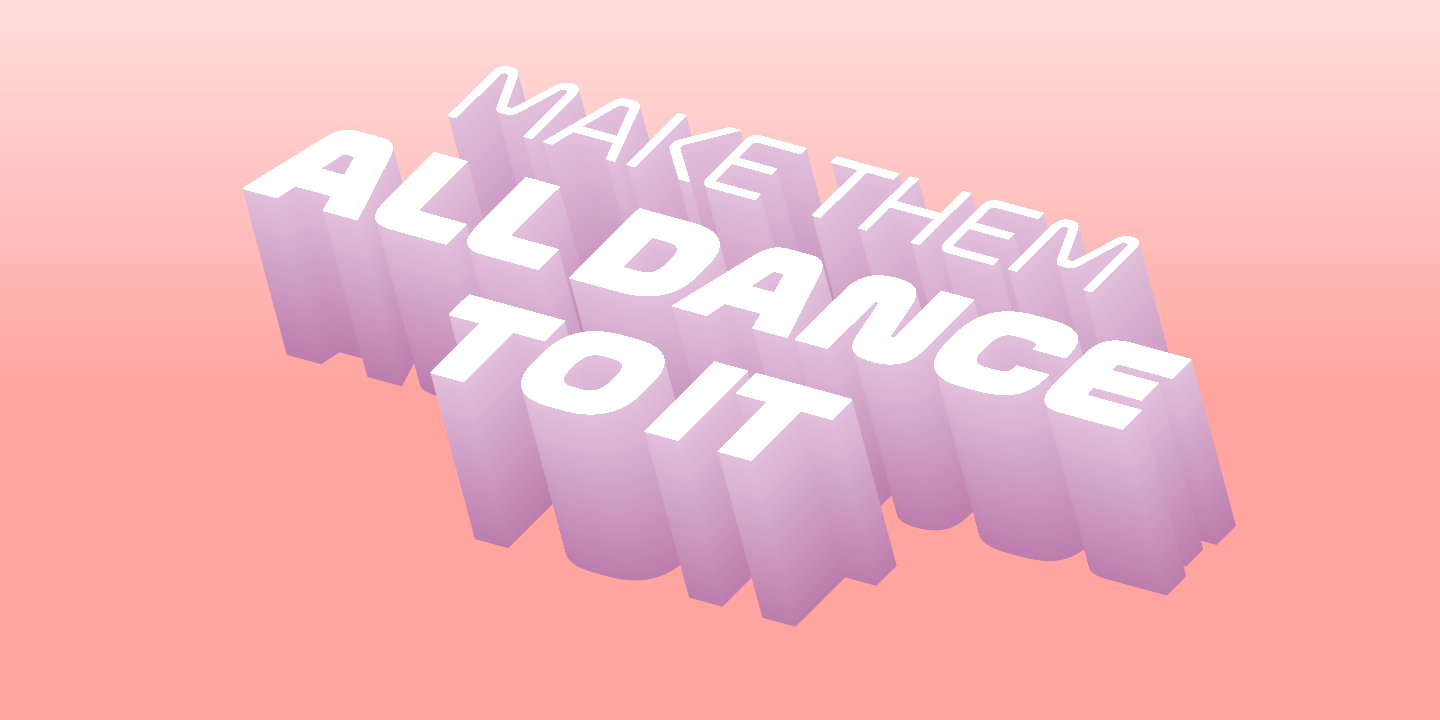
Kinn Font is perfect for various design applications including Scandinavian design studios, Nordic lifestyle branding, minimalist home decor companies, sustainable furniture manufacturers, modern architecture firms, contemporary art galleries, clean tech startups, and Nordic-inspired wellness centers that require authentic Scandinavian sophistication and minimalist elegance.
What makes Kinn Font truly exciting is its masterful embodiment of Nordic design philosophy and Scandinavian minimalism that captures the essence of clean living, functional beauty, and the timeless aesthetic principles that define Nordic culture's approach to creating harmony between simplicity and sophistication. This refined typeface features clean, purposeful letterforms with subtle geometric precision that evoke images of pristine fjords, modern Scandinavian interiors, and the thoughtful design approach that prioritizes functionality without sacrificing beauty. The font's Nordic character reflects the clarity and purposefulness of Scandinavian design thinking, making it perfect for brands that want to communicate minimalist sophistication, sustainable values, and the refined simplicity that defines authentic Nordic lifestyle. Its clean appearance creates immediate associations with Scandinavian quality and modern minimalism.
The Kinn Font family includes multiple weights and Nordic variations designed to enhance minimalist communication. The collection features Thin, Light, Regular, Medium, SemiBold, and Bold weights, each maintaining the font's characteristic Scandinavian appeal while offering different levels of minimalist presence. The family also includes condensed versions for efficient space usage, extended variants for dramatic applications, and comprehensive character sets with Nordic symbols and modern iconography. Additional features include contextual alternates and minimalist ligatures that create clean, sophisticated text arrangements perfect for Nordic design and contemporary applications.
Design and lifestyle professionals consistently choose Kinn Font Free Download for projects requiring authentic Nordic character and Scandinavian credibility. The font's minimalist nature makes it particularly effective for design studios, sustainable brands, and contemporary lifestyle companies targeting audiences who appreciate Nordic design principles and minimalist aesthetics. Its excellent readability across various applications ensures effective communication while maintaining the distinctive Scandinavian character that conveys design authority and Nordic sophistication.
The advanced OpenType capabilities of Kinn Font include contextual alternates, stylistic sets, and comprehensive character support that accommodates Nordic terminology and design expressions while preserving the font's authentic Scandinavian character. The technical precision ensures consistent minimalist appearance across different design applications and Nordic platforms.
For creative professionals seeking a typeface that embodies genuine Nordic heritage and Scandinavian sophistication, Kinn Font offers unparalleled minimalist appeal and design elegance. Its ability to convey Nordic values while maintaining functional communication makes it invaluable for design studios, sustainable brands, and contemporary lifestyle companies. The font's distinctive Scandinavian character ensures memorable design impact across all applications, creating powerful visual identity systems that celebrate the timeless principles of Nordic design and the refined simplicity that continues to influence global design trends and sustainable living practices.